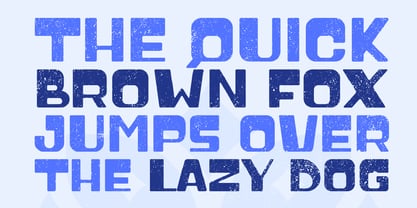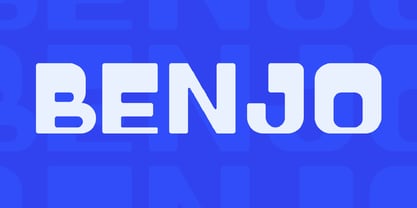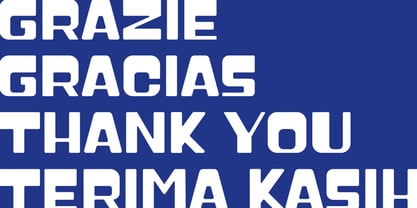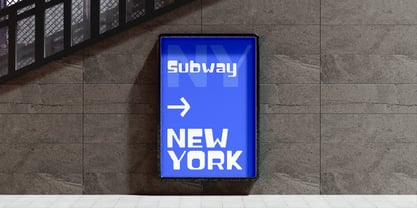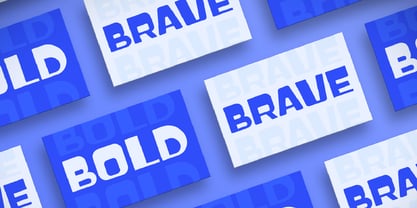
Benjo
by Habitype
The Benjo Font Family was designed by Fahrul Saputra and published by Habitype. Benjo contains 1 styles. More about this family
Benjo is a bold display typeface designed to make words stand out with a simple, direct, and slightly playful personality. The heavy, blocky structure of the letterforms gives it an immediate, eye-catching presence, while the smoothly rounded outer corners inject a touch of approachable warmth.
Its clean geometry ensures it delivers high impact effortlessly, making it the perfect choice for posters, massive titles, or any design project that needs to grab attention instantly without trying too hard.
Designers: Fahrul Saputra
Foundry: Habitype